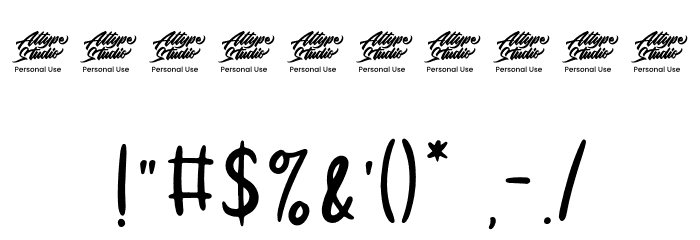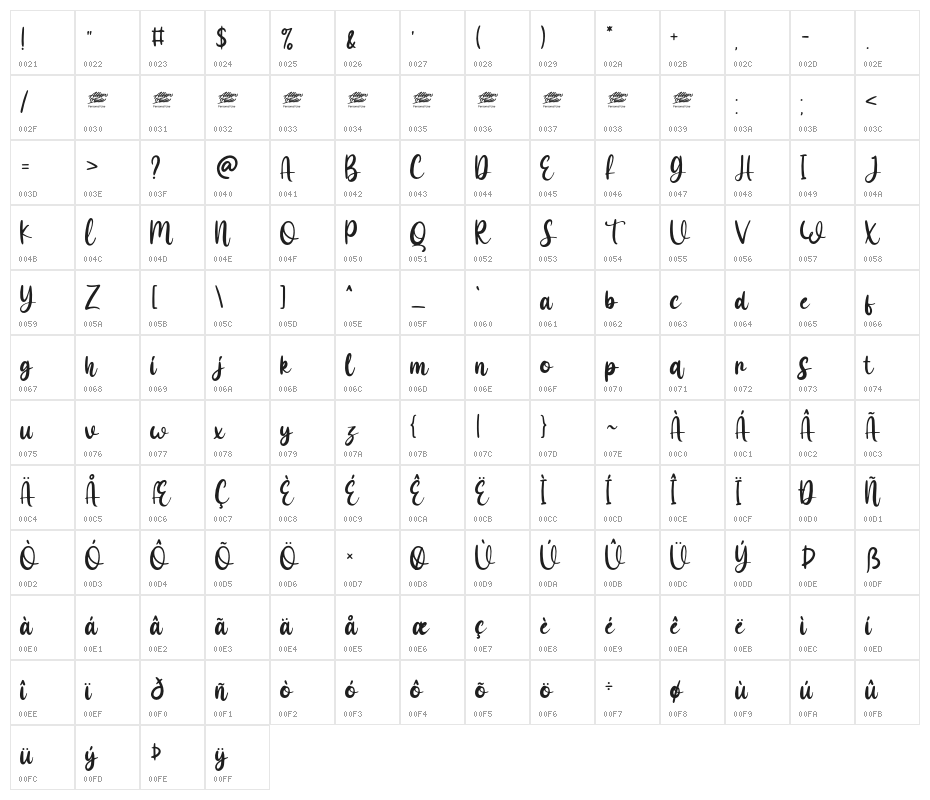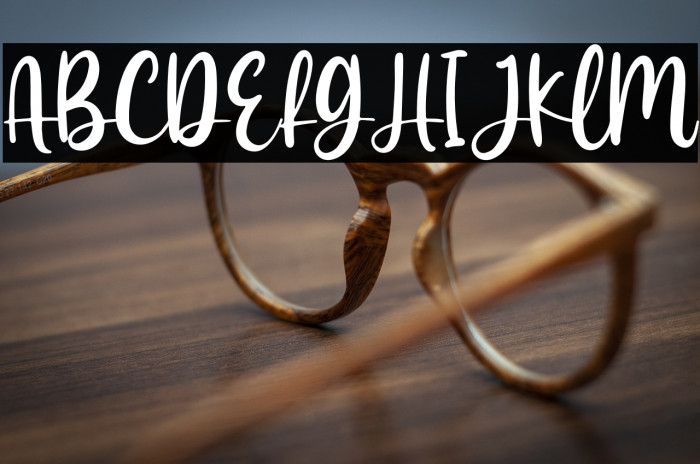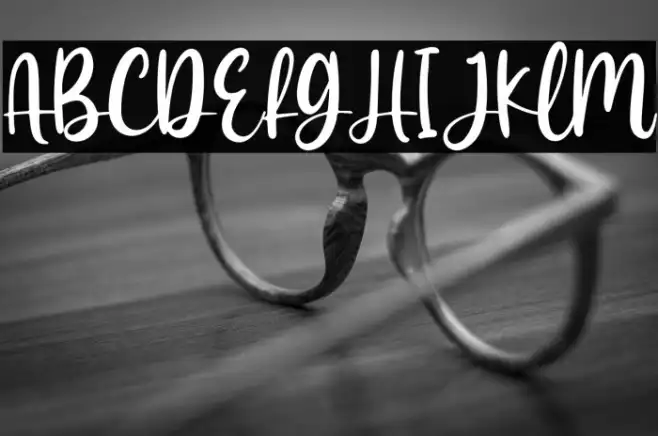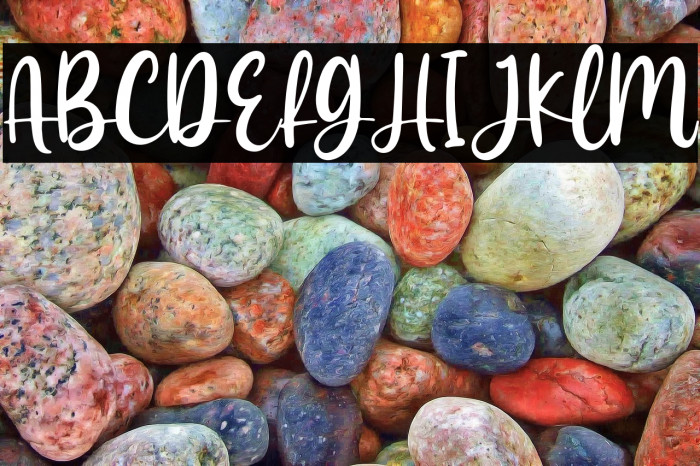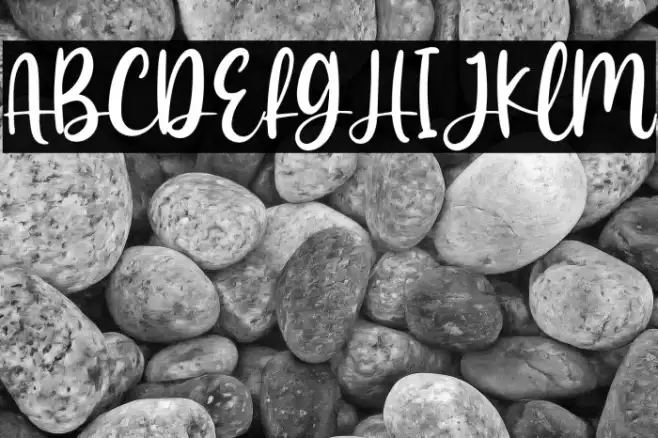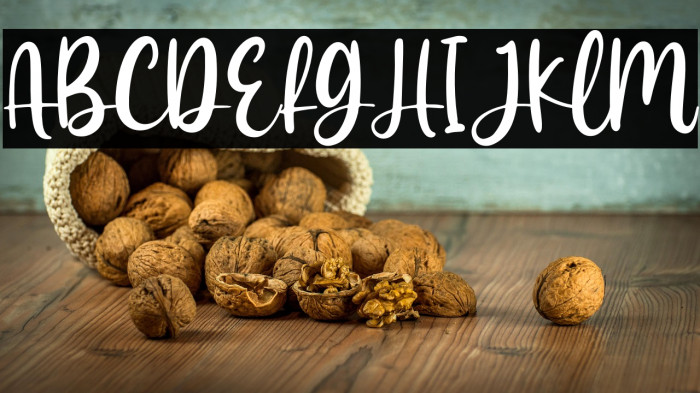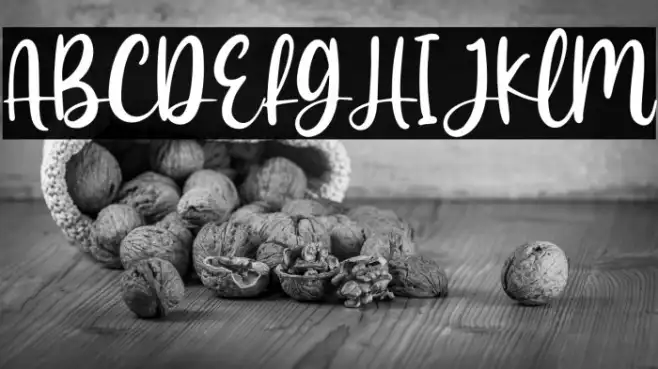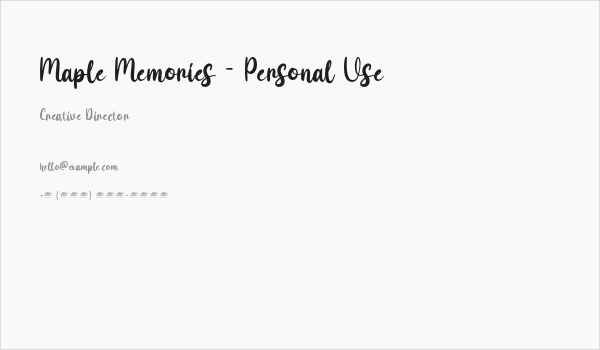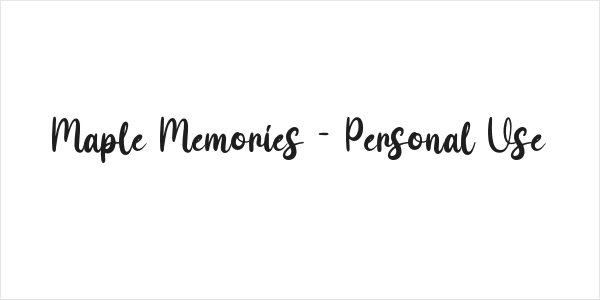
Maple Memories - Personal Use Font
Maple Memories - Personal Use Description
This font features a playful and flowing script style, characterized by its smooth, rounded edges and elegant curves. The uppercase letters are tall and slightly narrow, with a whimsical flair that adds a touch of personality. The lowercase letters maintain a consistent flow, enhancing readability while preserving the font's artistic nature. The numbers and special characters are designed to match the overall aesthetic, ensuring a cohesive look across all text elements. This font exudes a sense of warmth and friendliness, making it ideal for projects that require a personal touch.